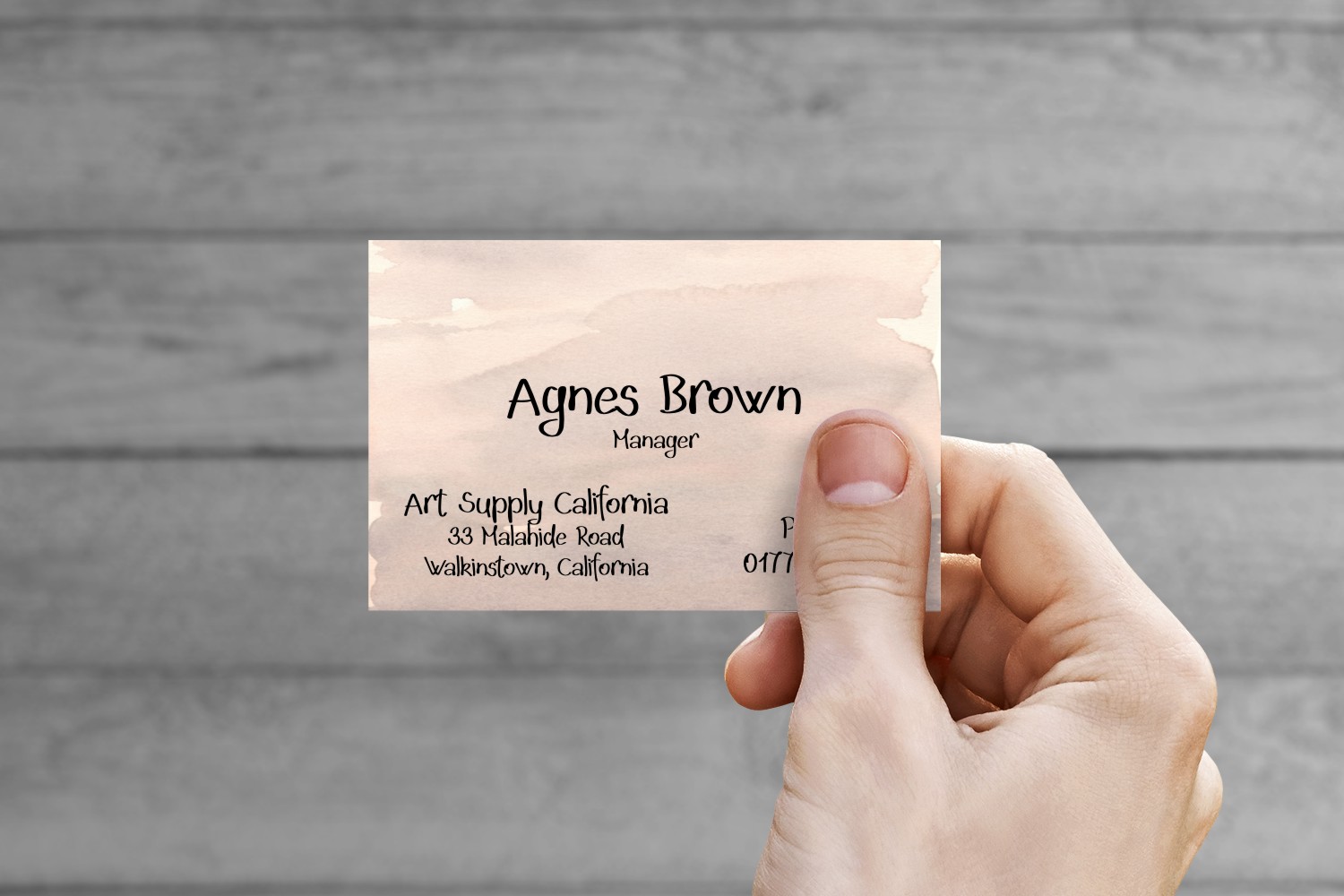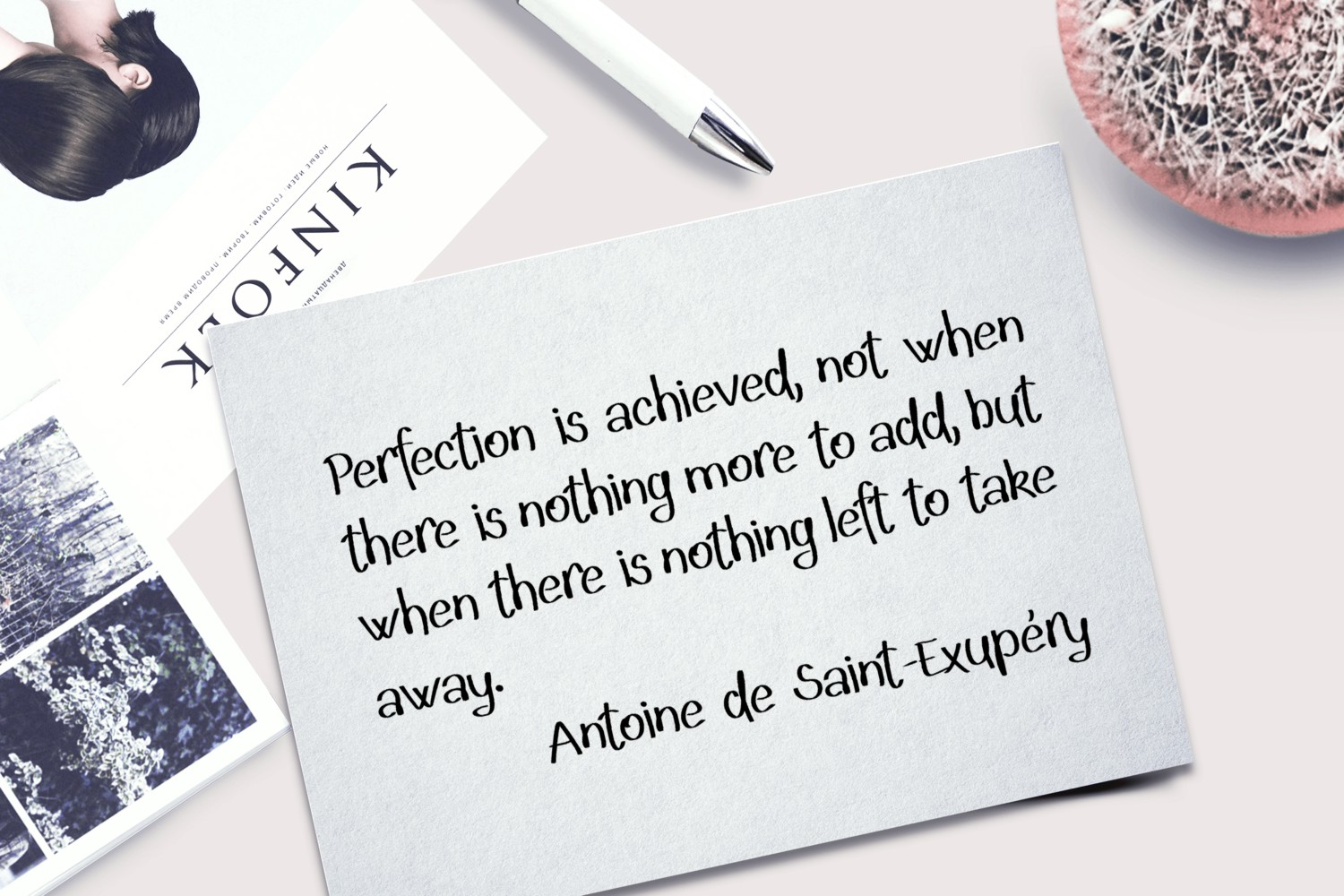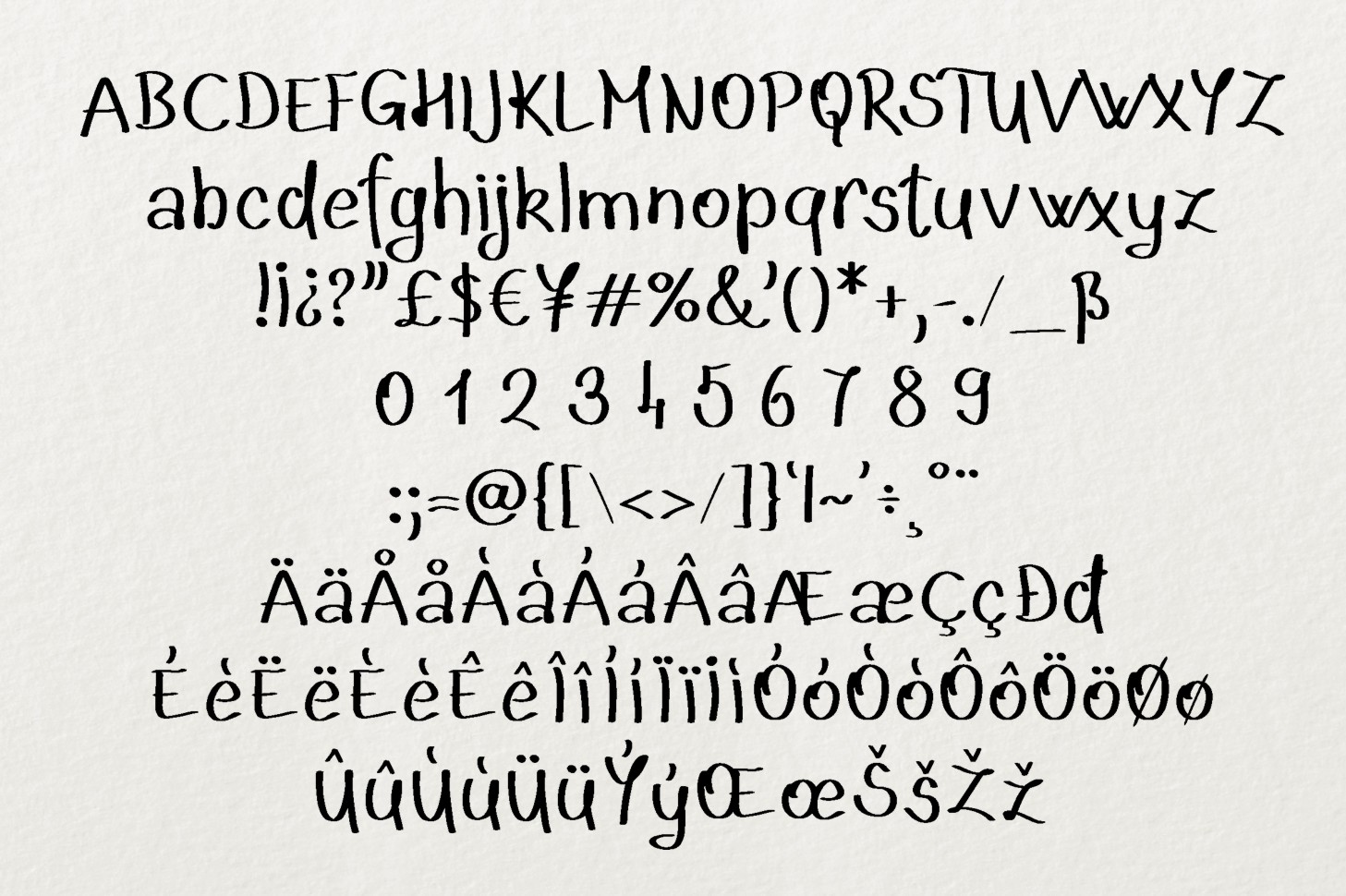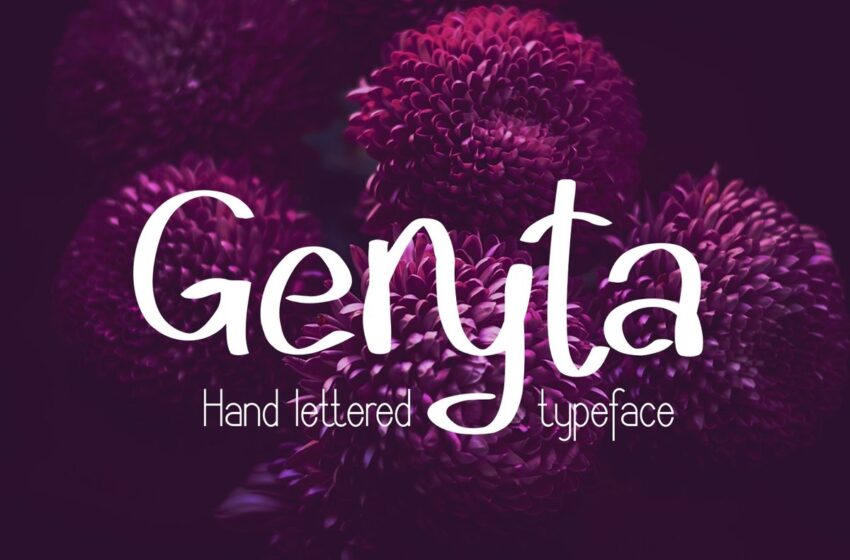
Introduction to Geryta Font
This delicately designed script font is a great asset to your projects; it has a nice weight that makes it applicable for a wide number of uses at any size.
Key Features of Geryta Font
Why Choose Geryta Font?
Geryta Font offers exceptional quality and versatility, making it a valuable addition to your design toolkit. Whether you’re creating for personal projects or commercial use, Geryta Font delivers professional results.